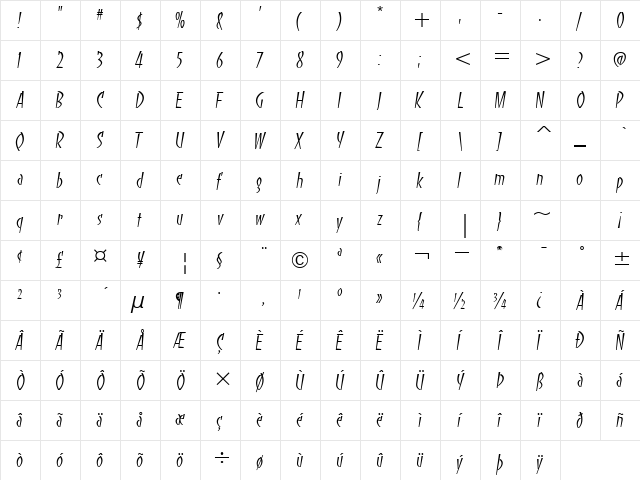
BancoITC TT Light
Design Context for BancoITC TT Typeface
BancoITC TT is a composed and adaptable typeface that performs quietly and consistently across a wide range of design contexts. The delicate stroke weight brings airiness and refinement to layouts.